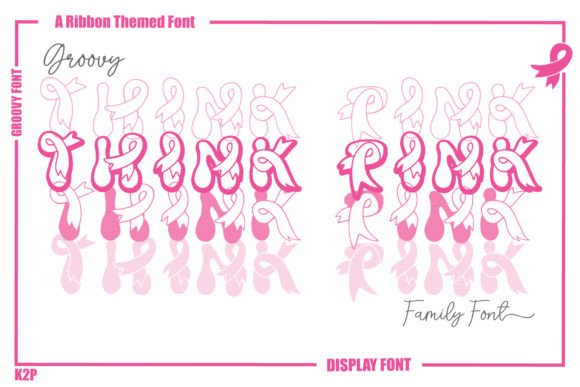
Introducing the Groovy Think Pink font, a striking and exuberant decorative font family that exudes personality and boldness. With its thick, eye-catching letters, Groovy Think Pink is tailor-made for making a statement and leaving a lasting impression.
Step into a world of creativity and expression with this captivating font family, specially designed for modern resumes. Its unique, chunky letters are guaranteed to make your resume stand out from the crowd, showcasing your individuality and professional flair.
With Groovy Think Pink, you'll captivate recruiters and hiring managers with your resume's visual appeal. Its playful yet sophisticated style adds a touch of charm and personality, reflecting your confidence and creativity.
Embrace the Groovy Think Pink font and embark on a journey of self-expression. Let your resume radiate with uniqueness, embodying your skills, experience, and aspirations. This font family is not just a collection of letters; it's a gateway to showcasing your true self and securing your dream job.
Celebrate the power of pink with Groovy Think Pink, a font family that embodies strength, resilience, and unwavering spirit. Whether you're crafting a resume, designing a poster, or creating a captivating social media post, this font will add a touch of magic to your projects.